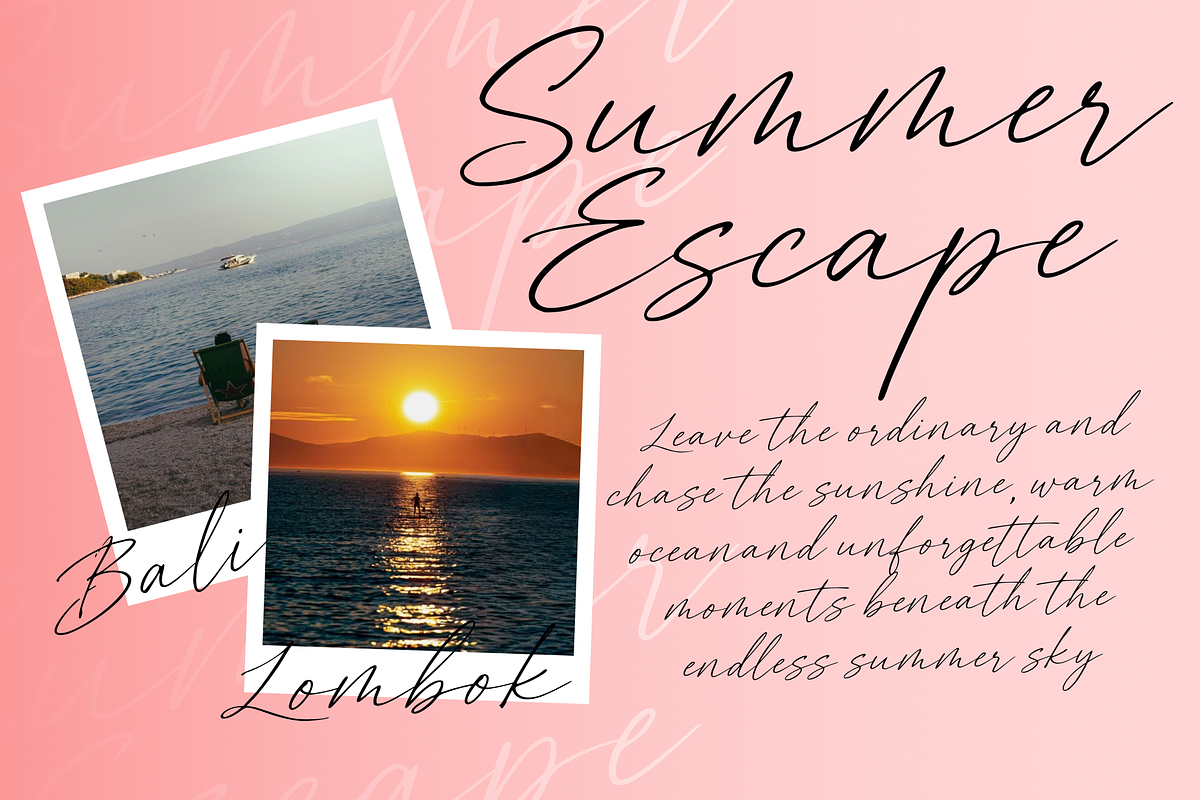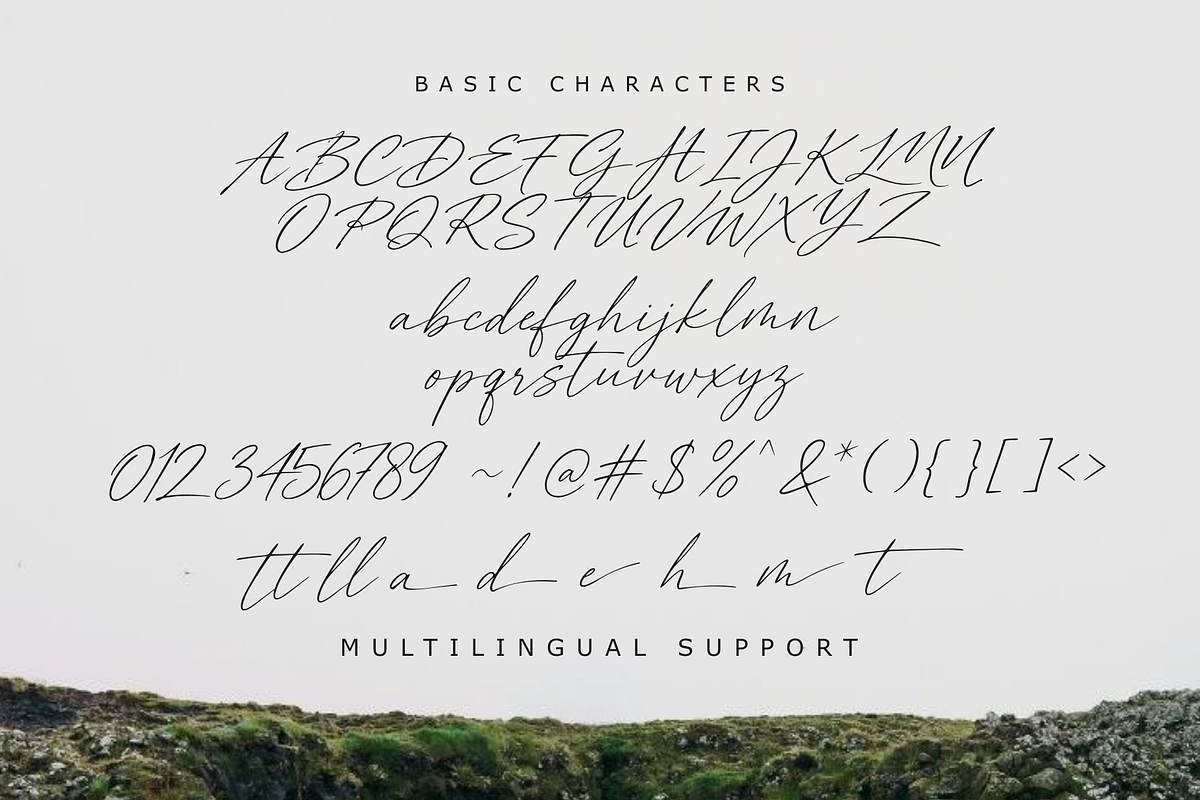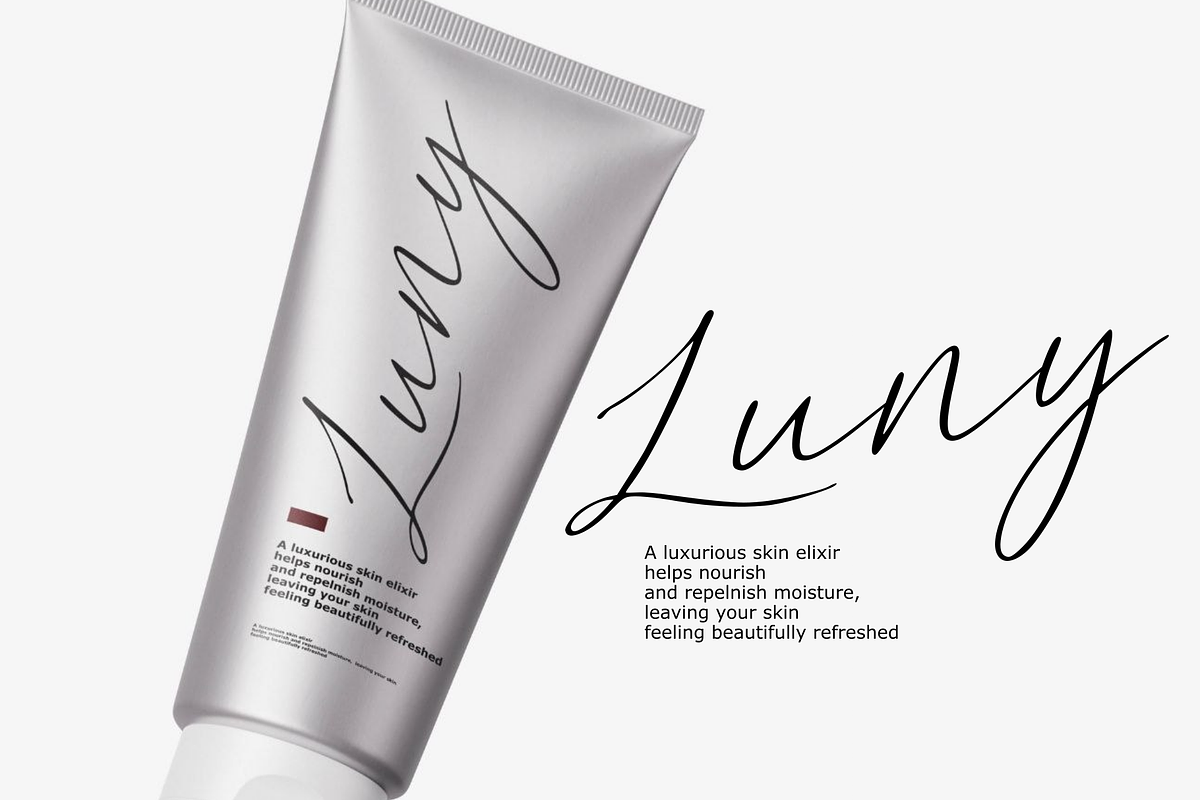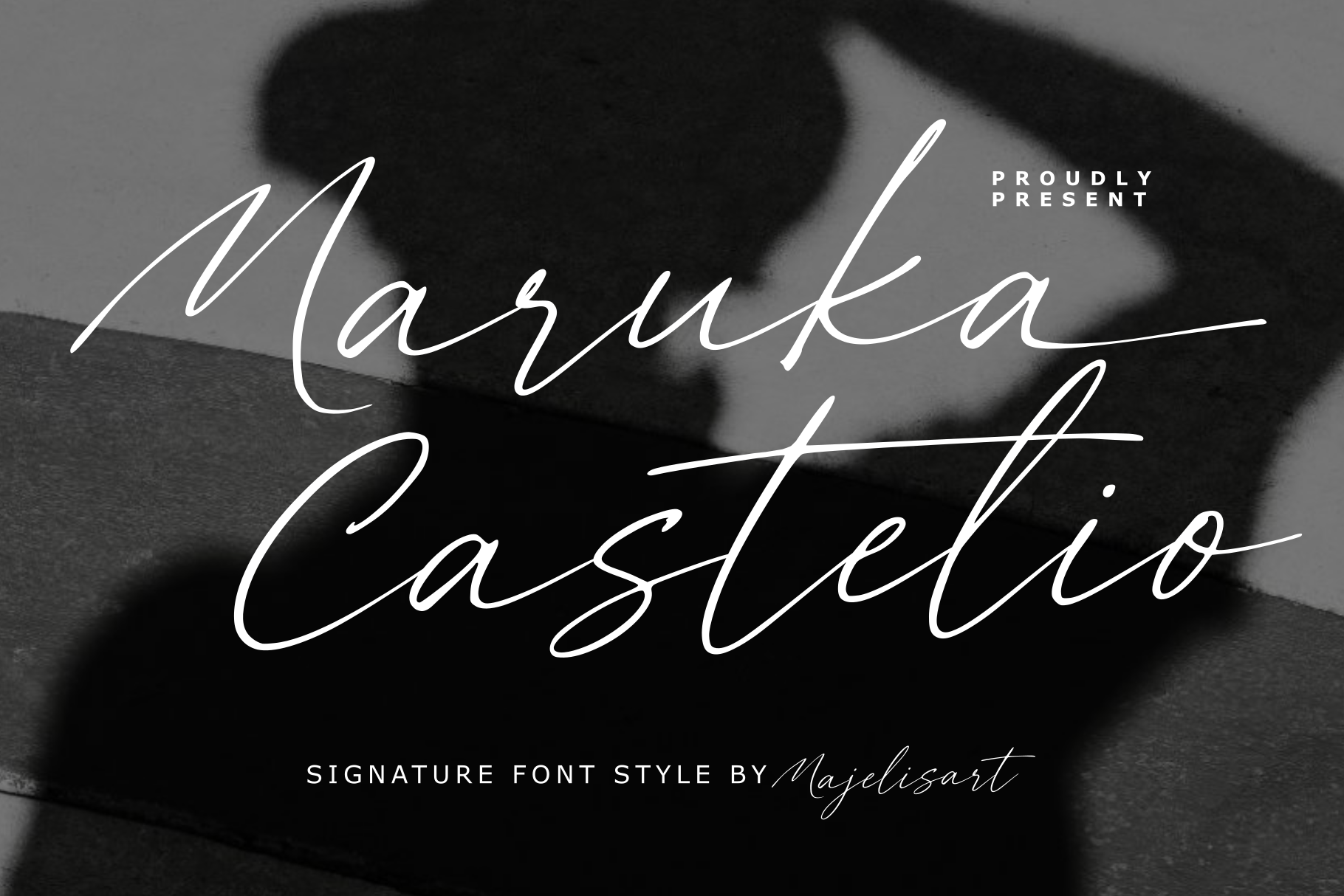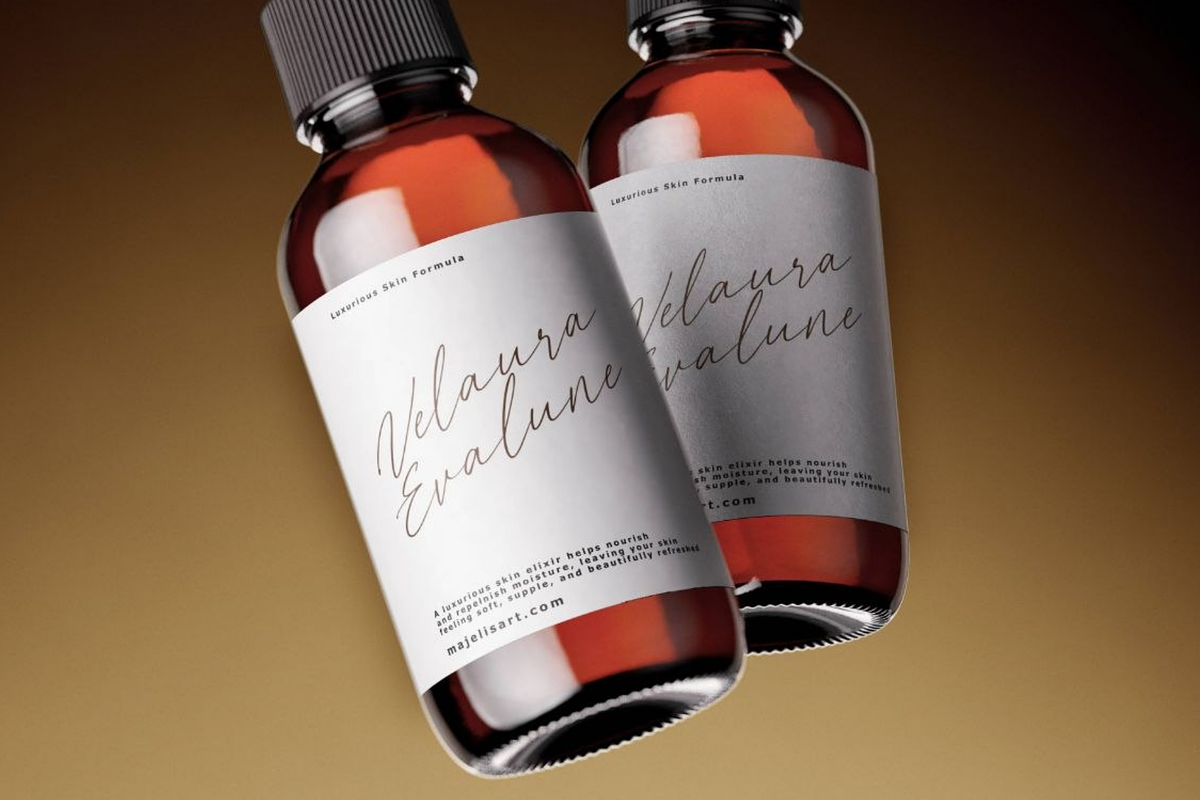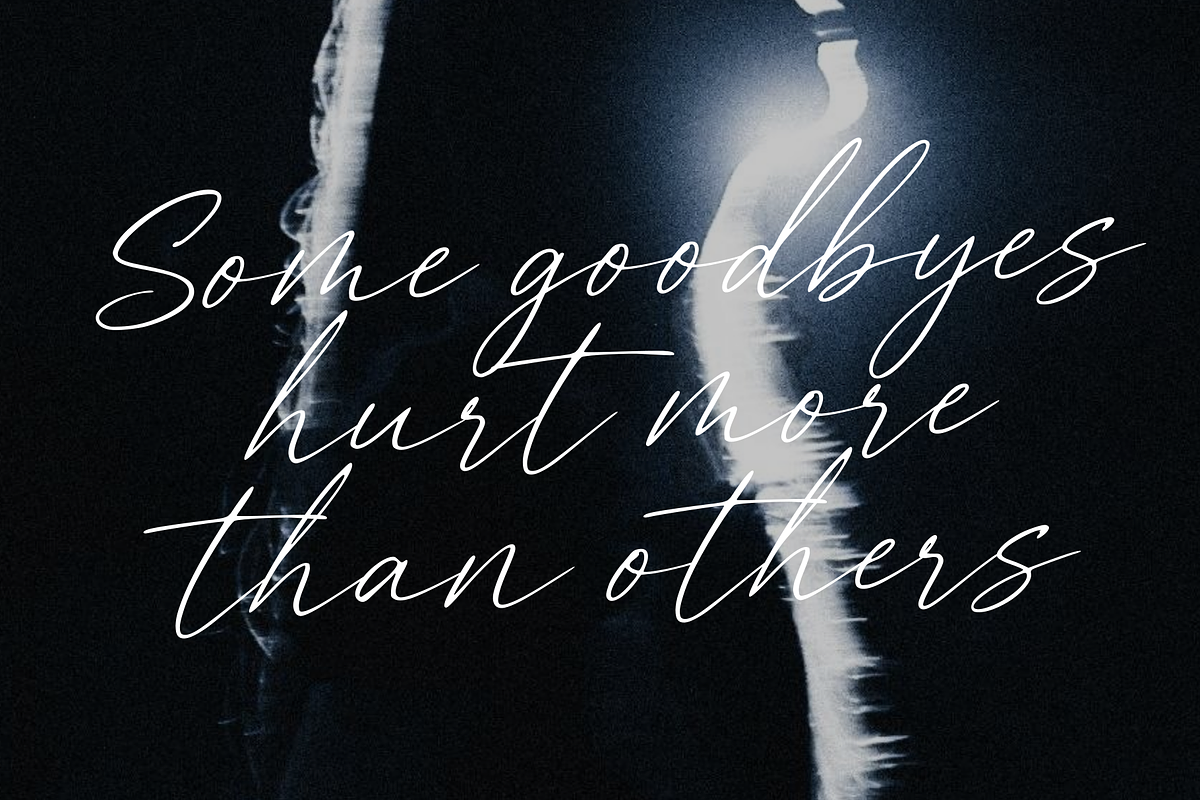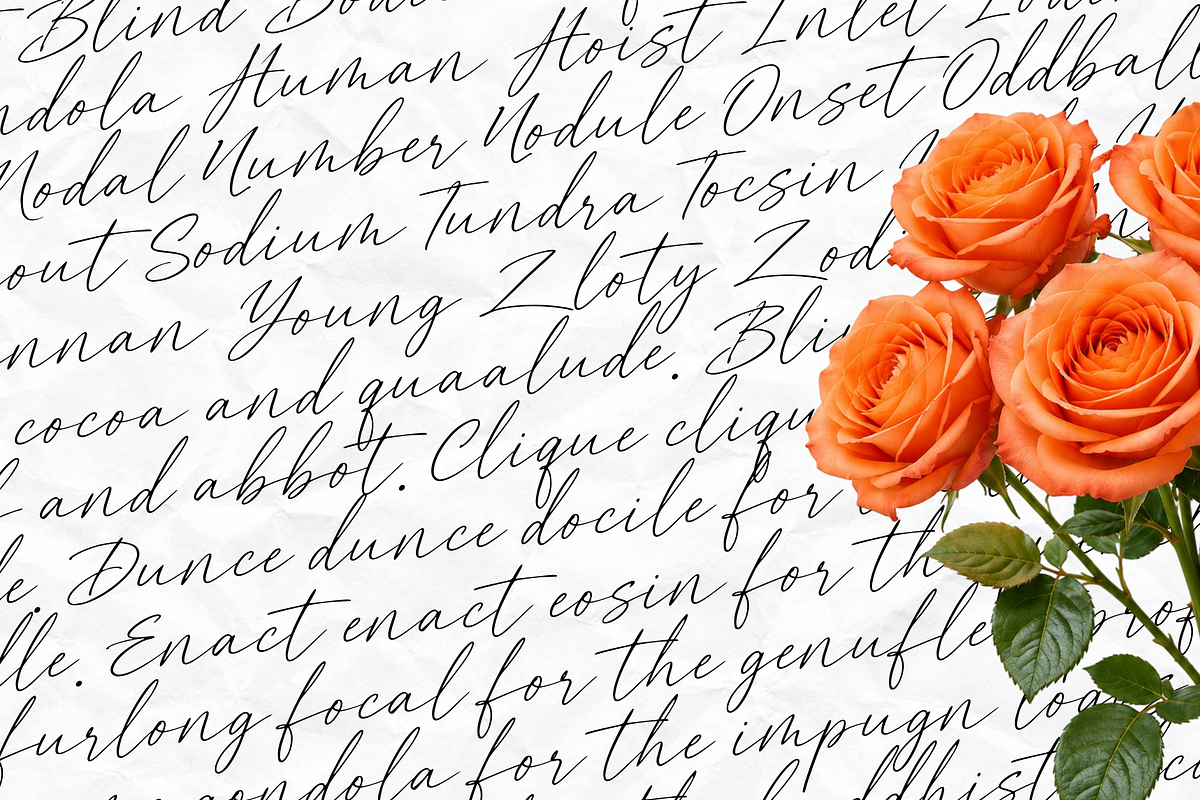
Maruka Castelio - Signature font
Maruka Castelio — Signature Script Font
Introducing Maruka Castelio, an elegant and sophisticated Signature Script Typeface designed to capture the natural beauty of handwritten signatures.
Featuring thin, flowing strokes, graceful curves, extended swashes, and an effortless handwritten rhythm, Marika Castelio creates a refined and personal aesthetic. Its elegant appearance makes it ideal for designs that require a touch of luxury, femininity, sophistication, and exclusivity.
Maruka Castelio includes multilingual support for supported Latin-based languages, making it suitable for creative projects designed for an international audience.
Maruka Castelio — Elegant strokes, timeless signatures.